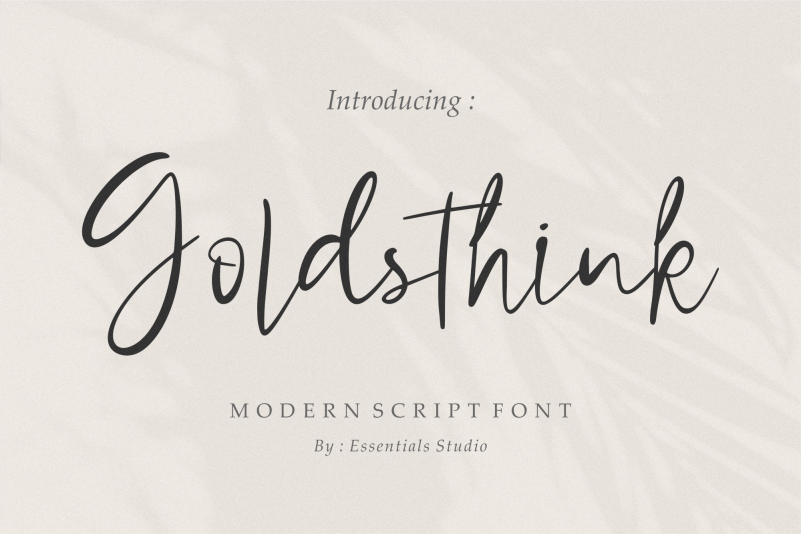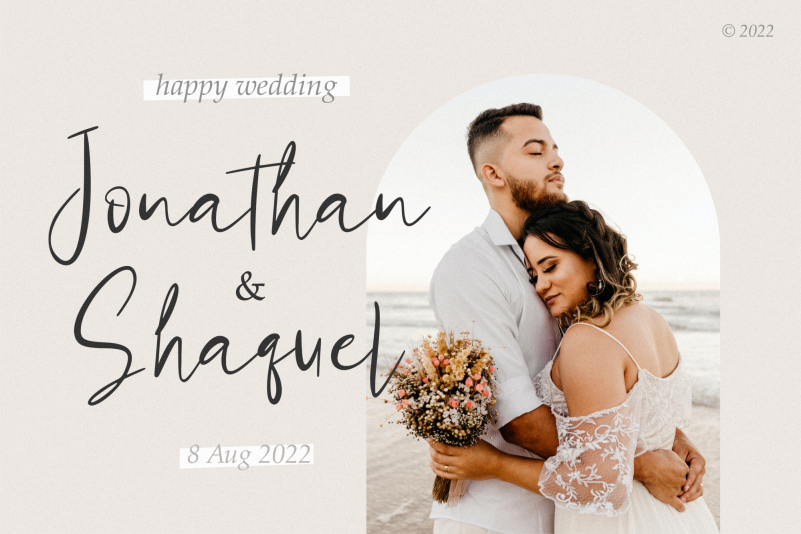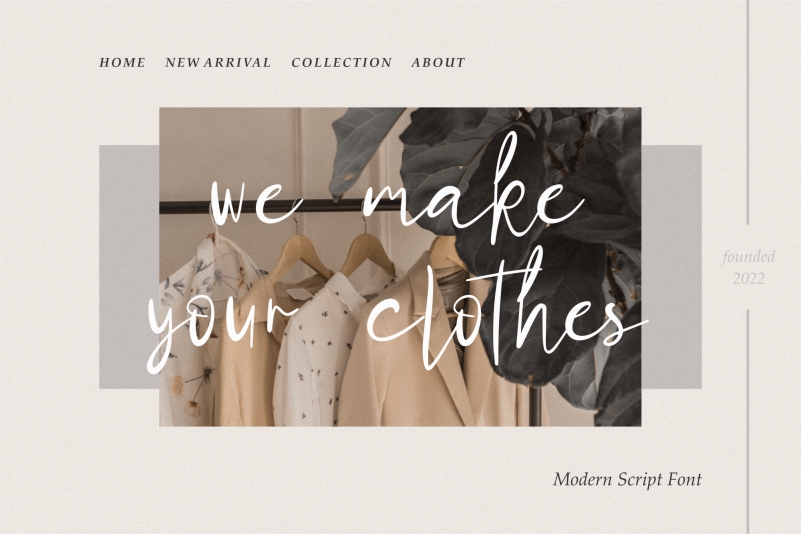
Goldsthink Font
Goldsthink Font is perfect for product packaging, branding project, megazine, social media, wedding, or just used to express words above the background.